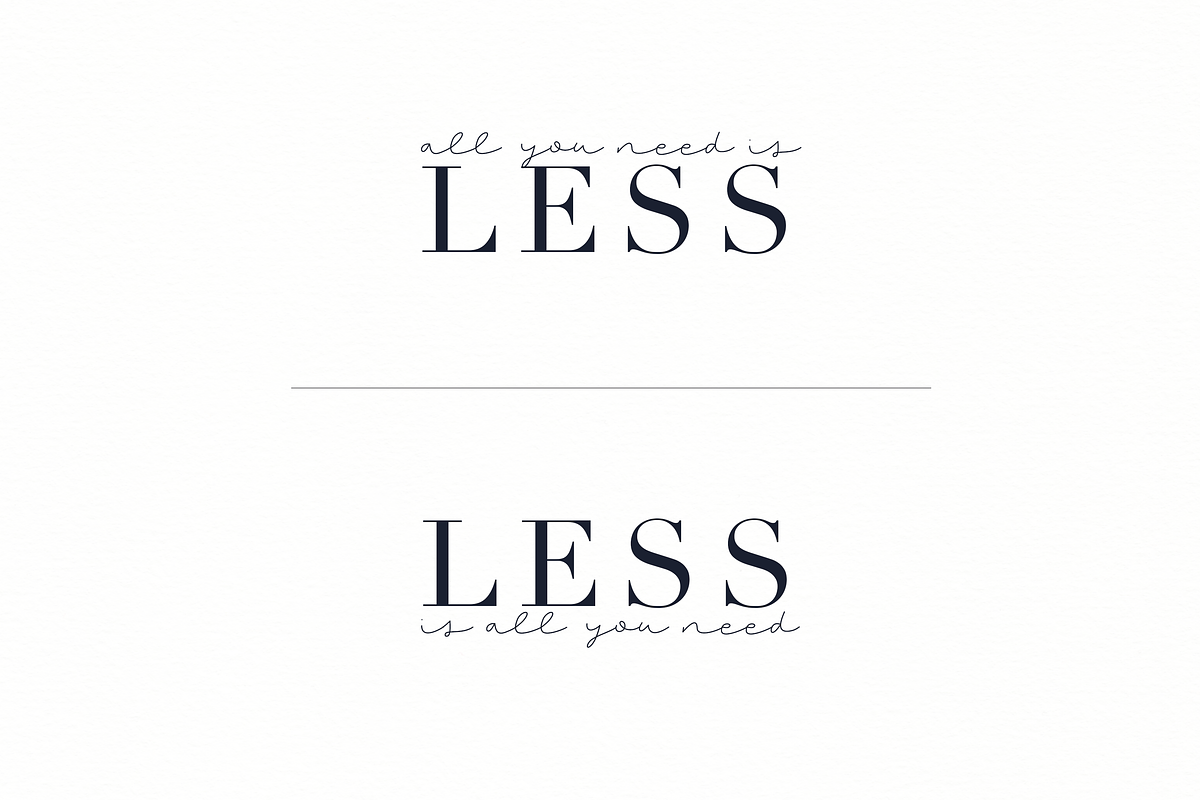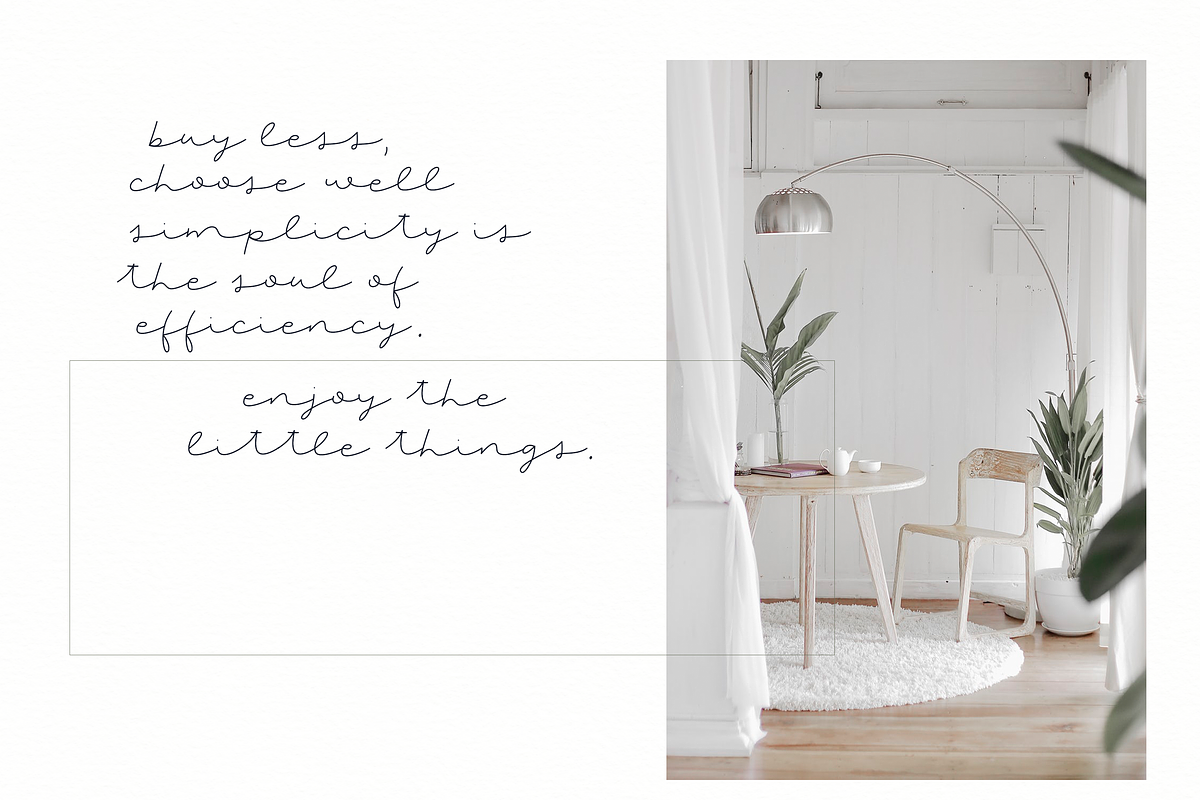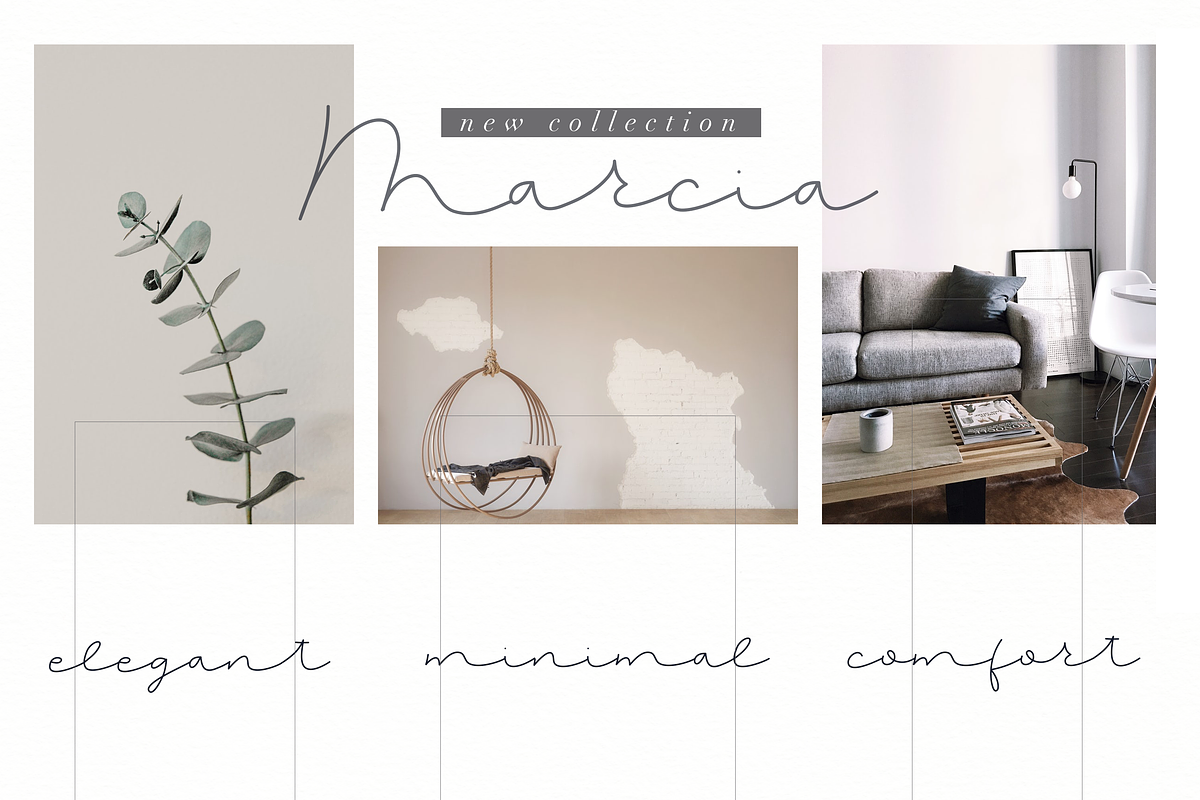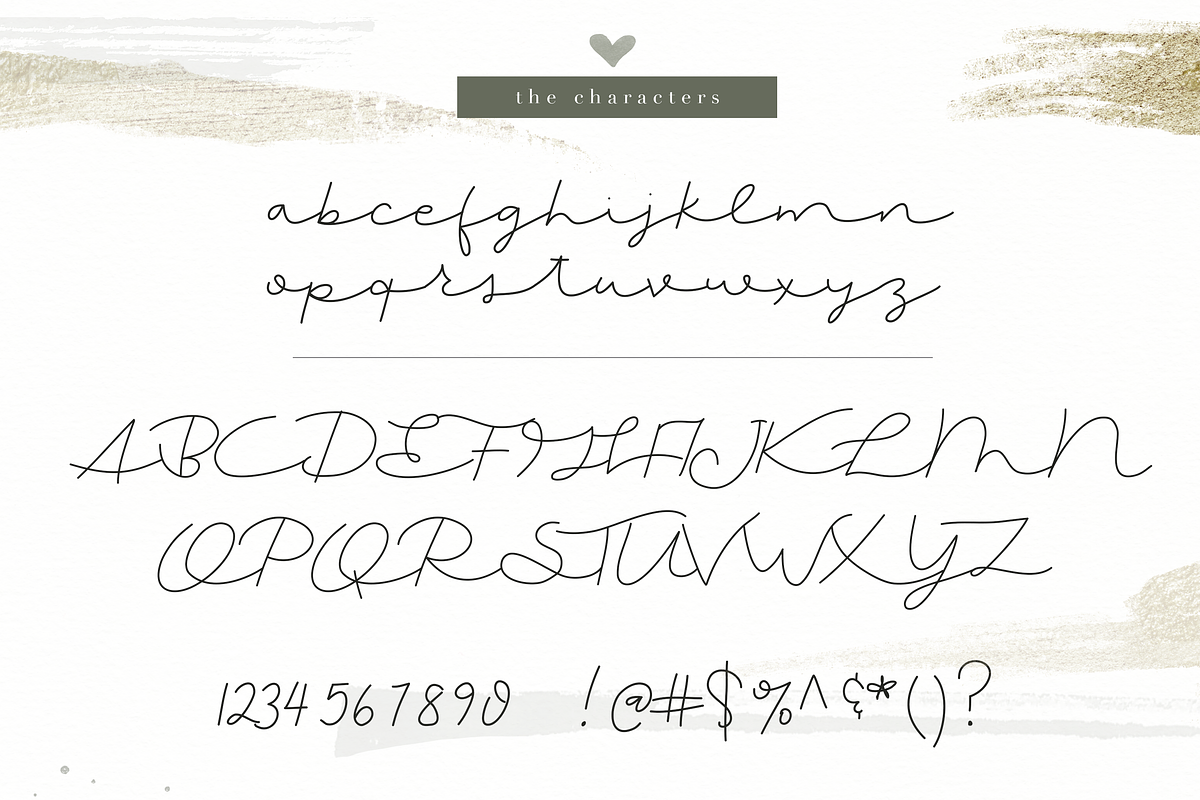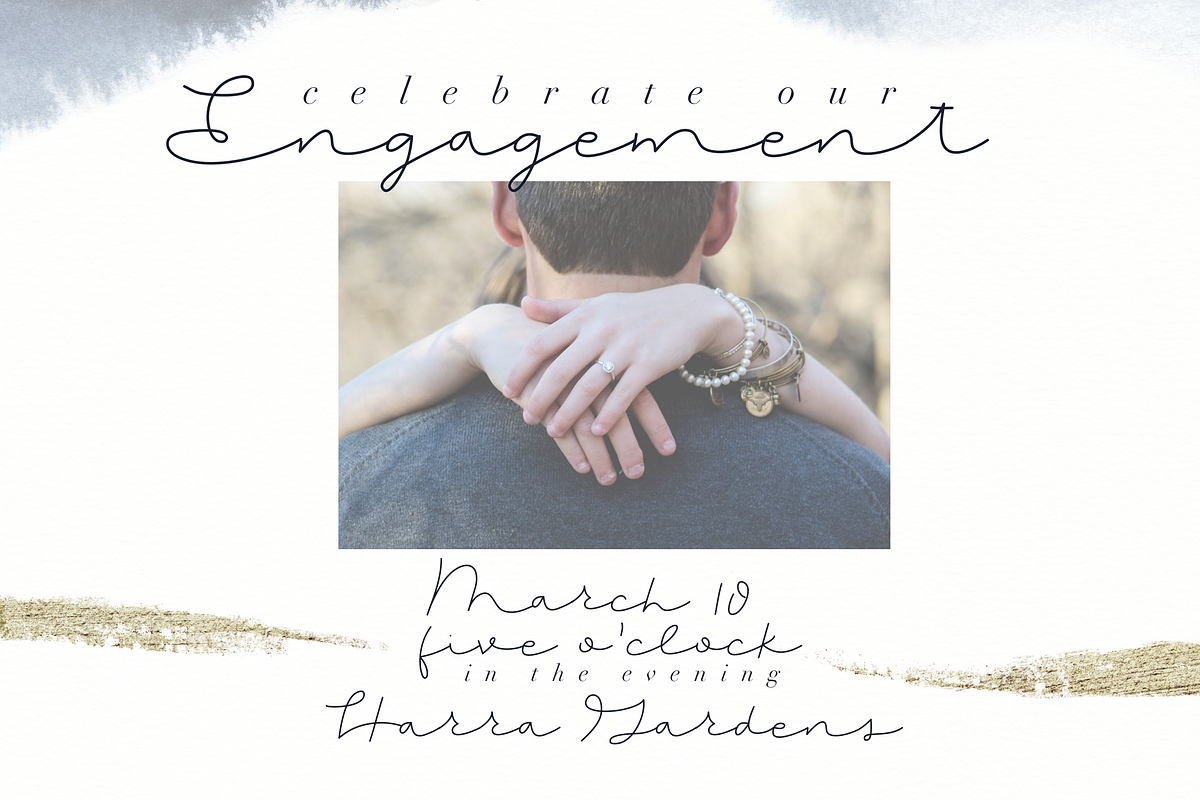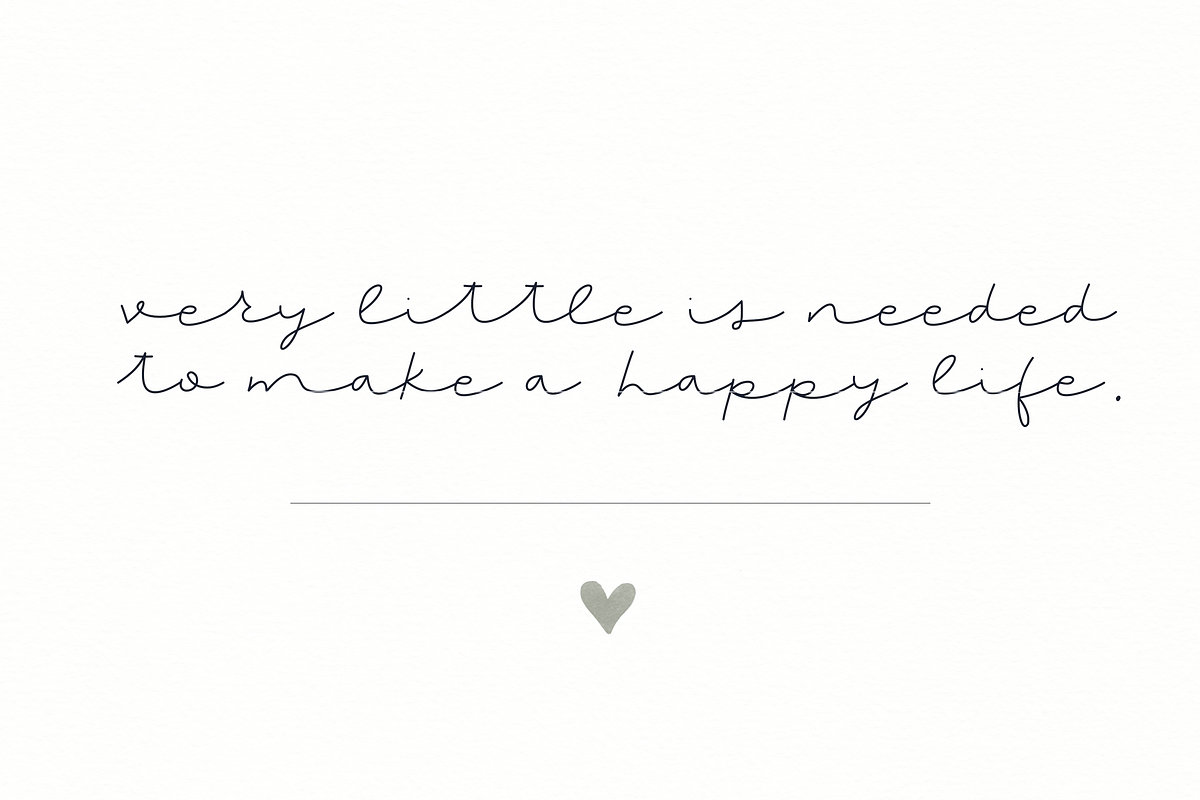
Nora - Handwritten Script Font
Nora is a delicate and unique handwritten script font.
This font is perfect for quotes, wedding invitations and decor, headings, blogs, logos, invitations and more!
Nora - Handwritten Script Font by KA Designs fits naturally into Branding, posters, packaging, typography.